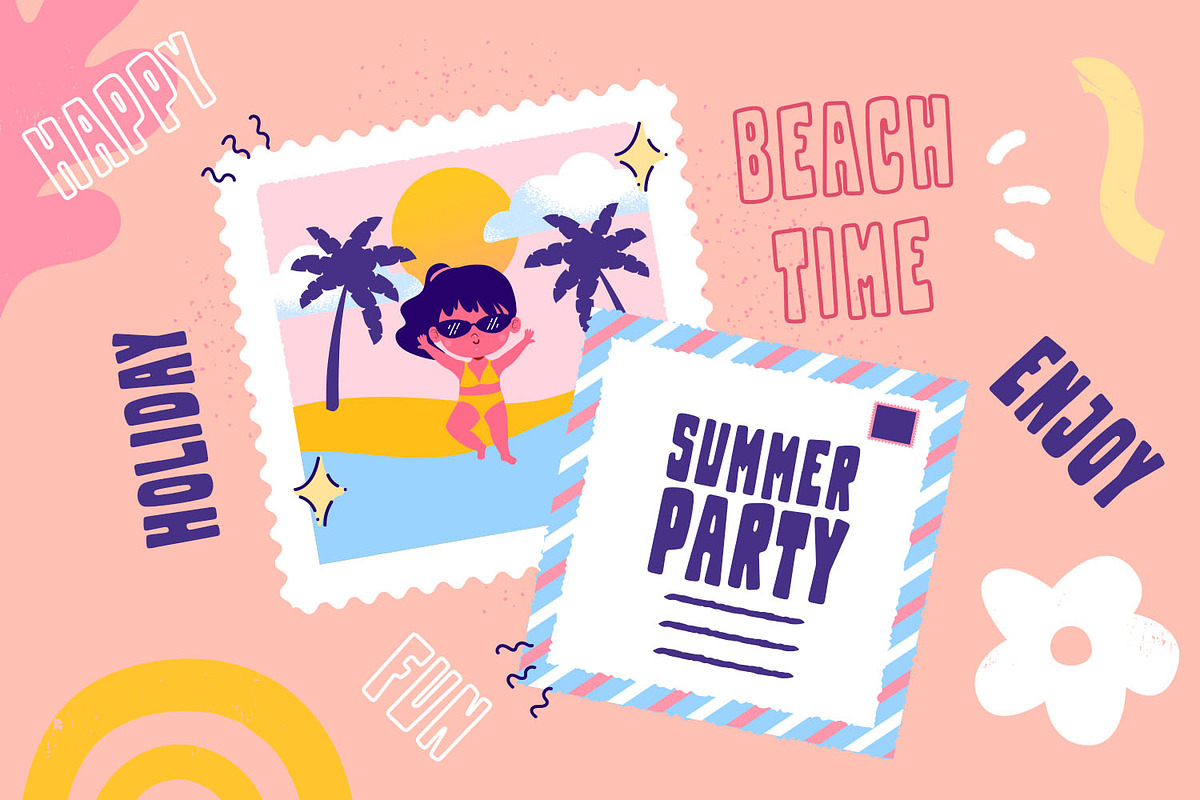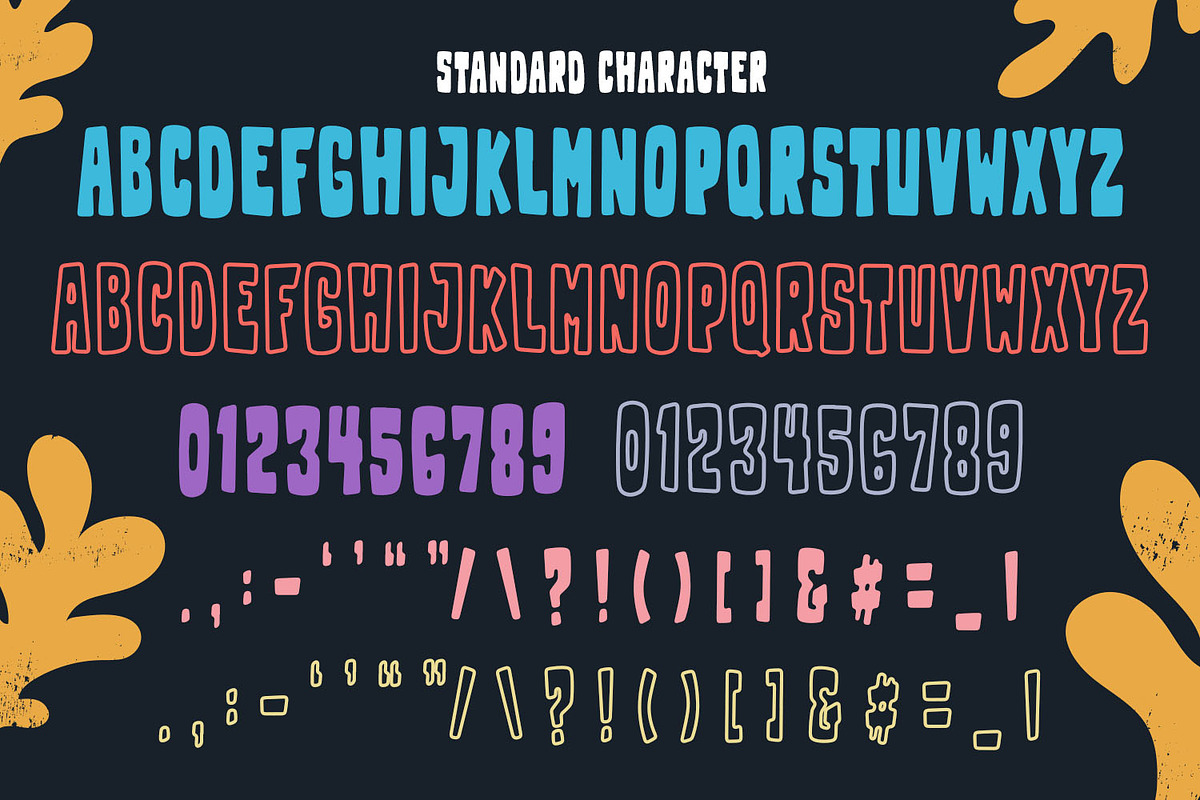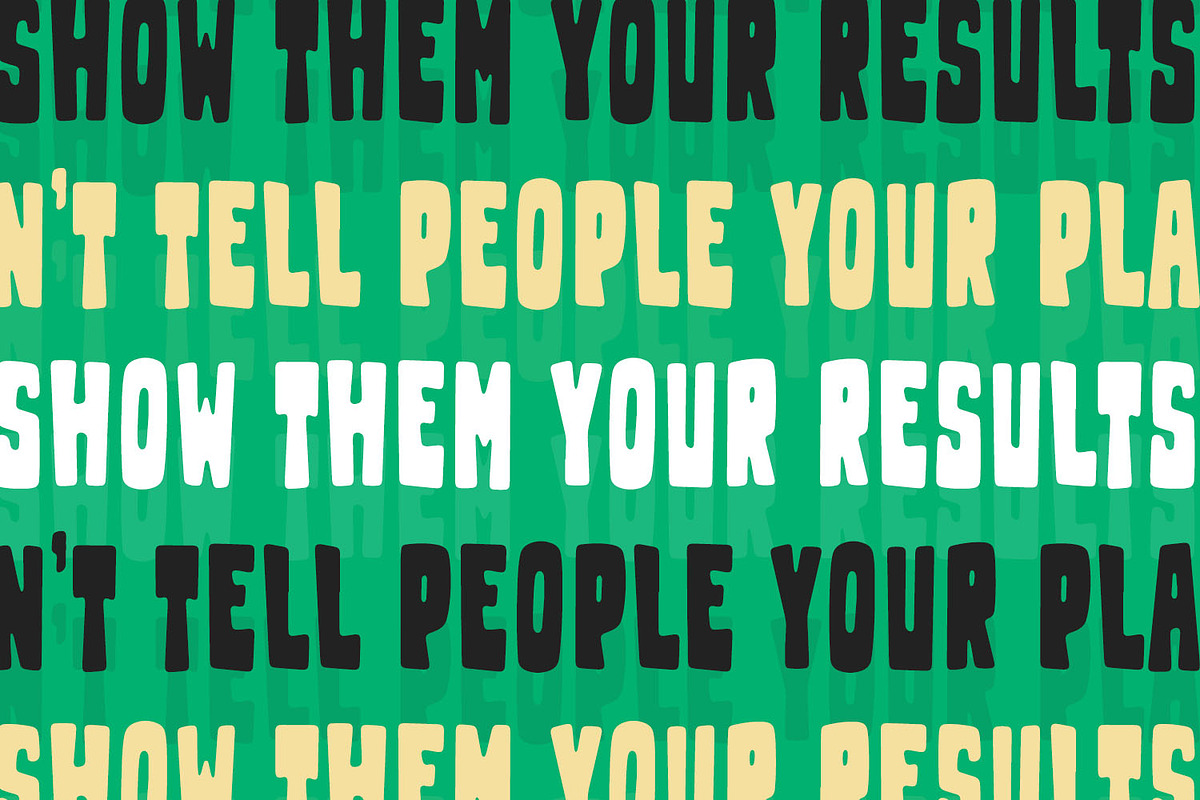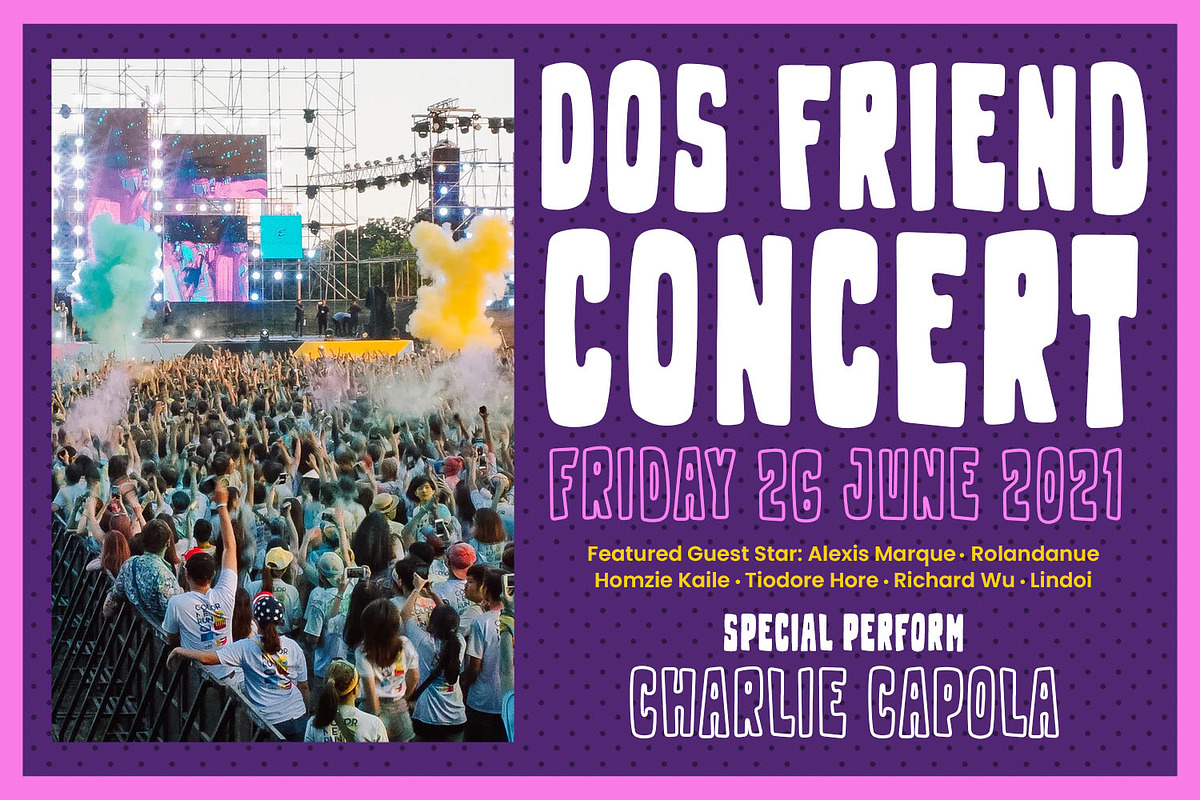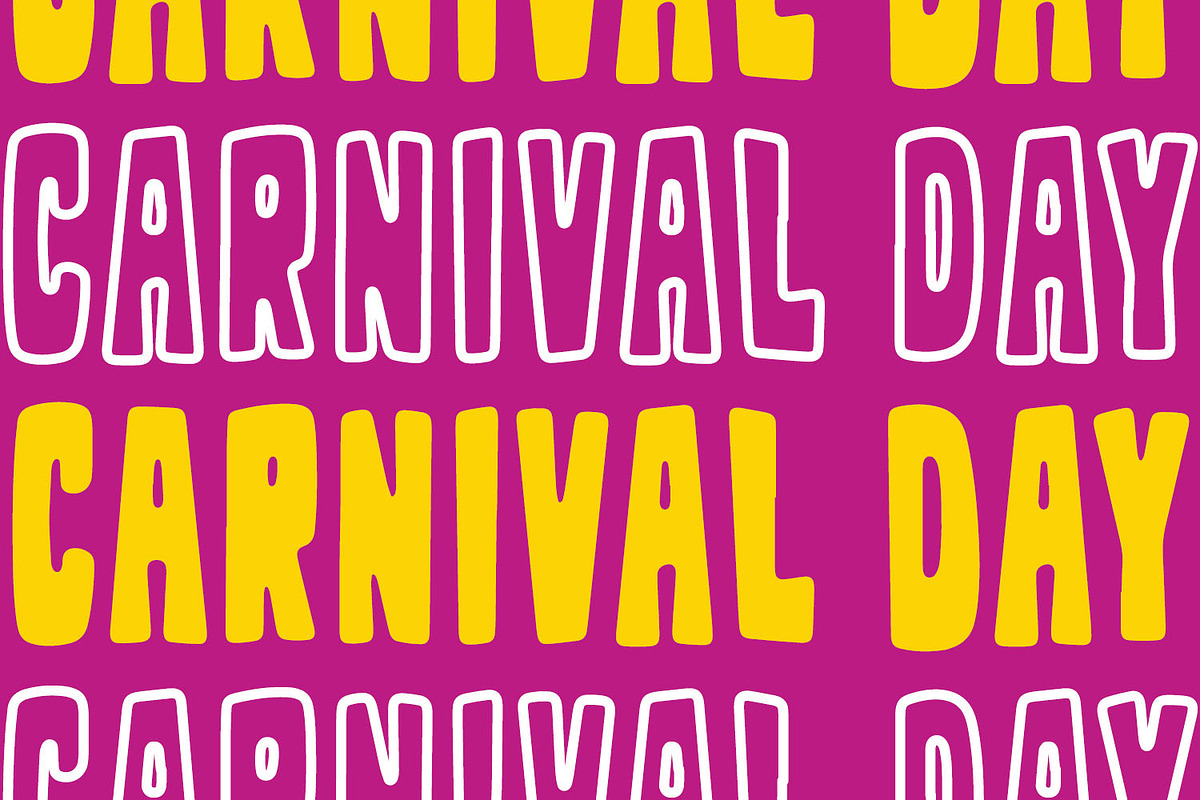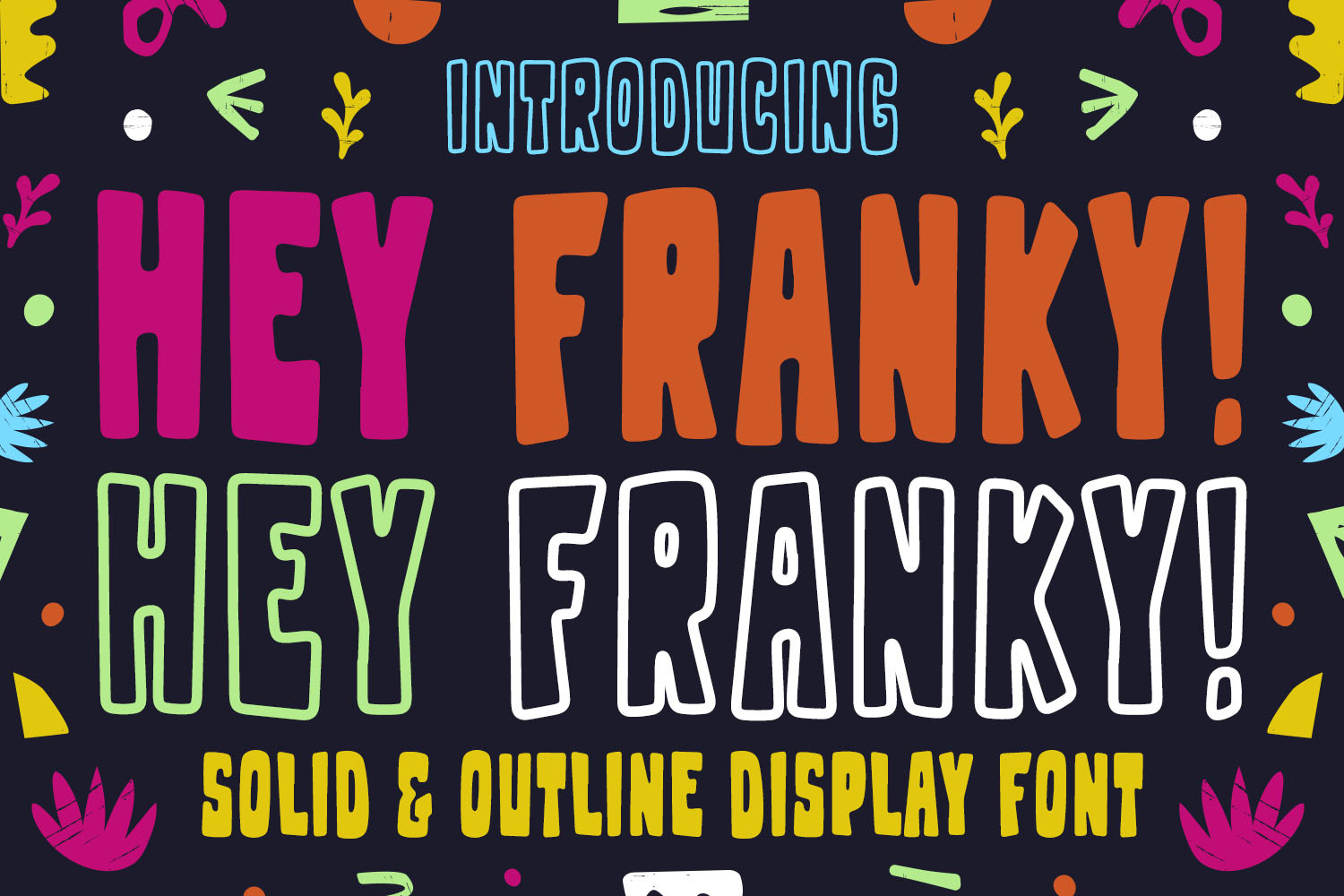
Hey Franky - Fun Display Font
Hey Franky is a bold solid and outline lettered display font. This font will easily add a fun touch to any craft that you wish to develop!
This font is suitable to use as a logotype, product designs, label, watermark, social media posts, apparel, invitation, signboard, sports club, motor/car, special events, or anything that needs handwriting taste.